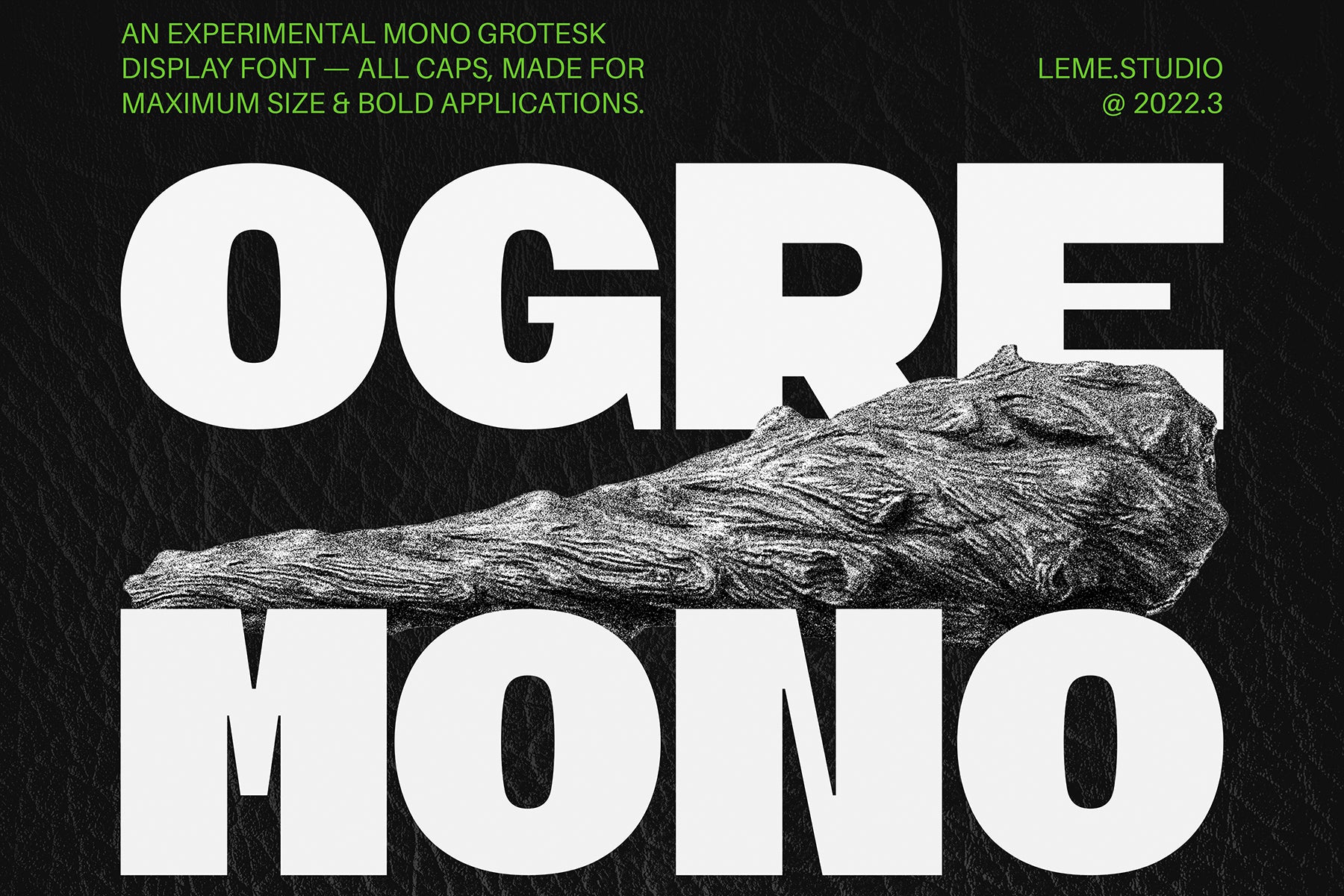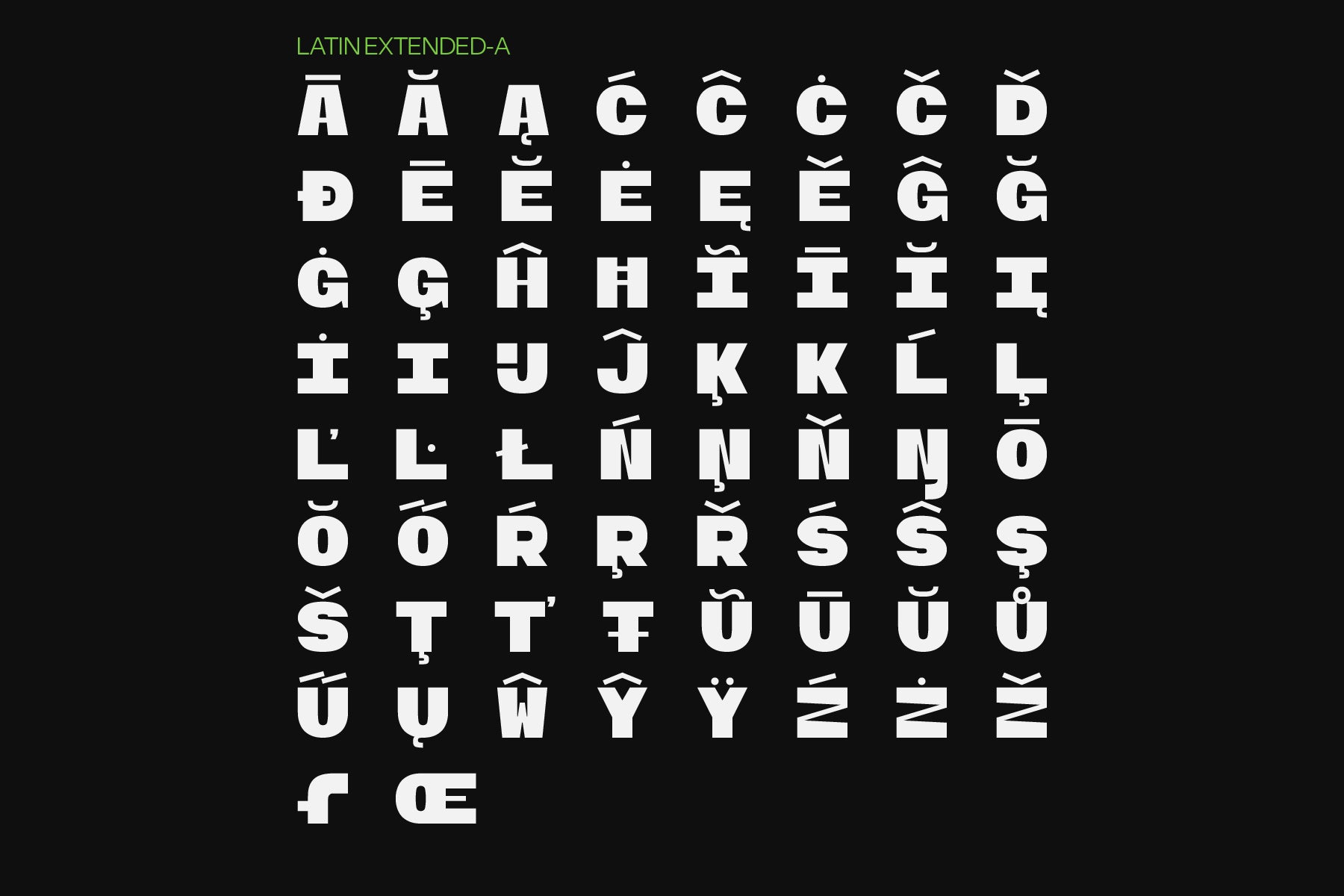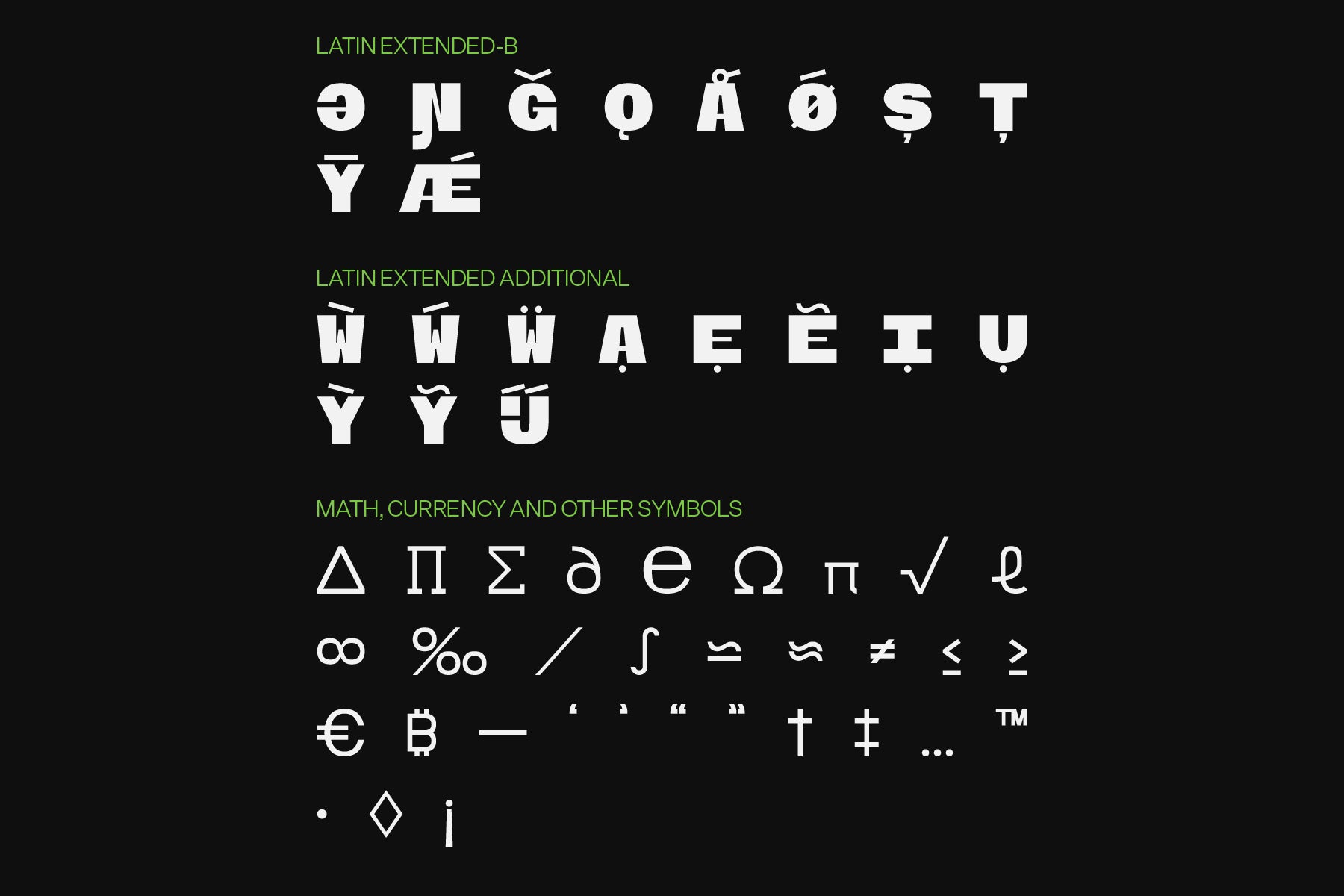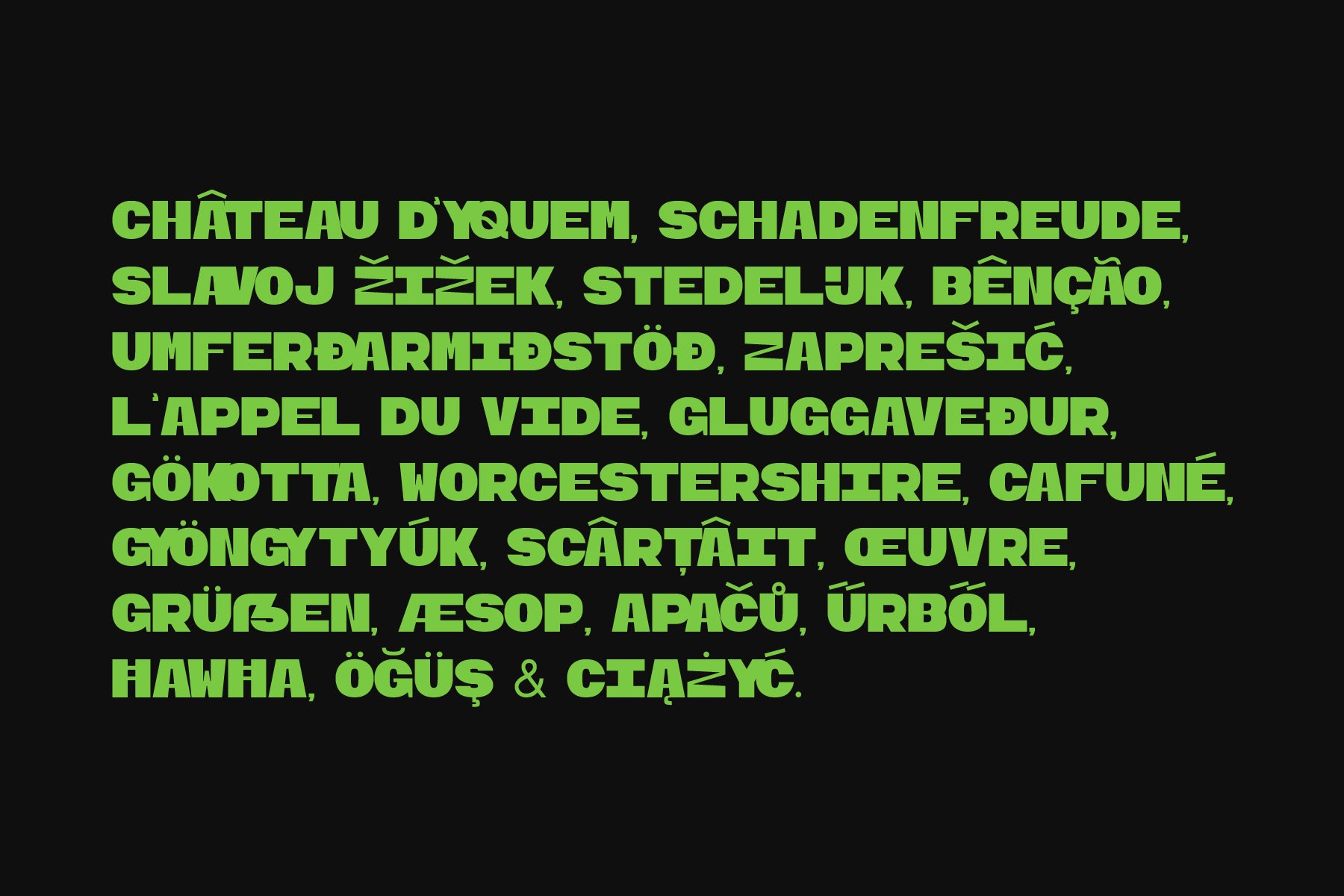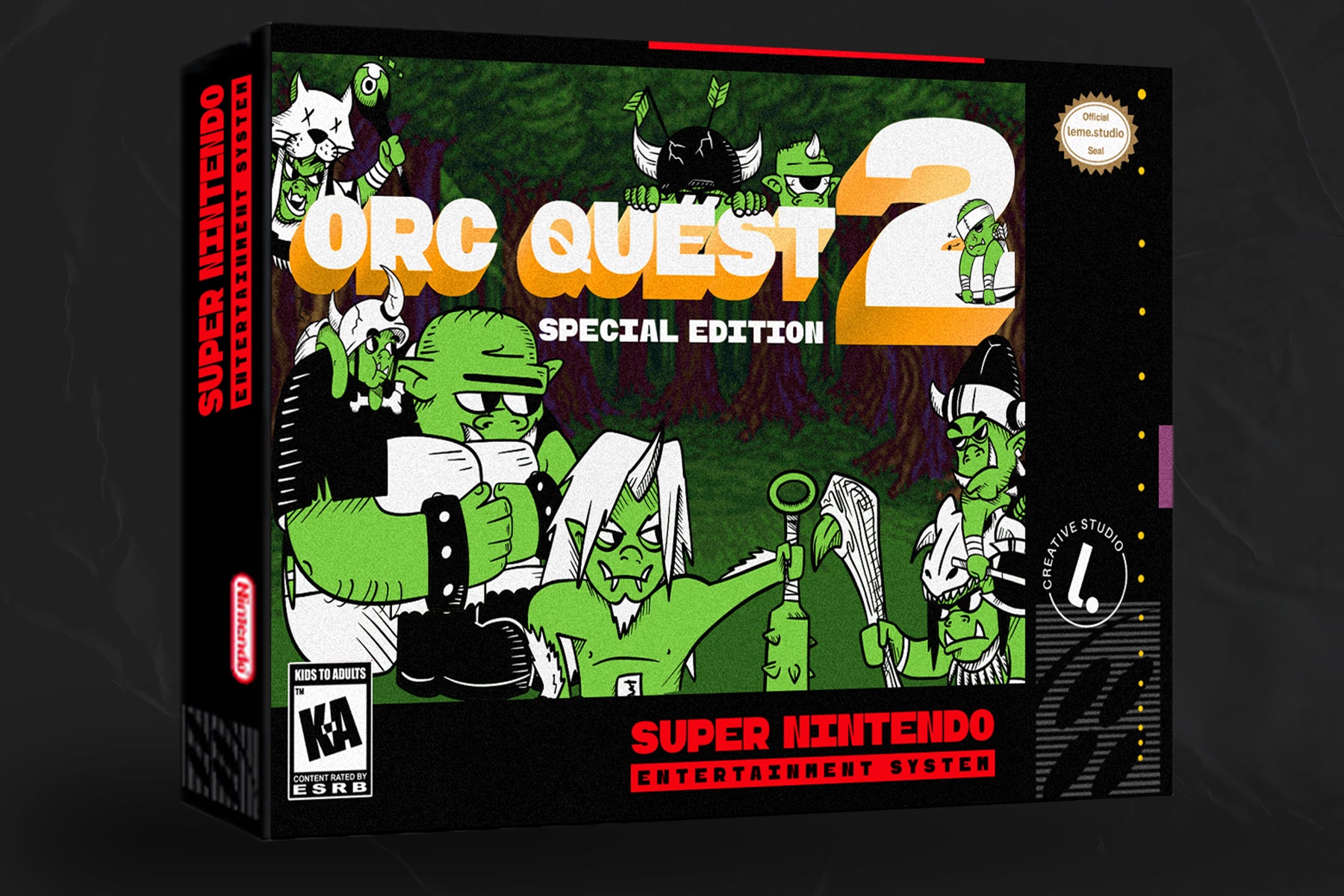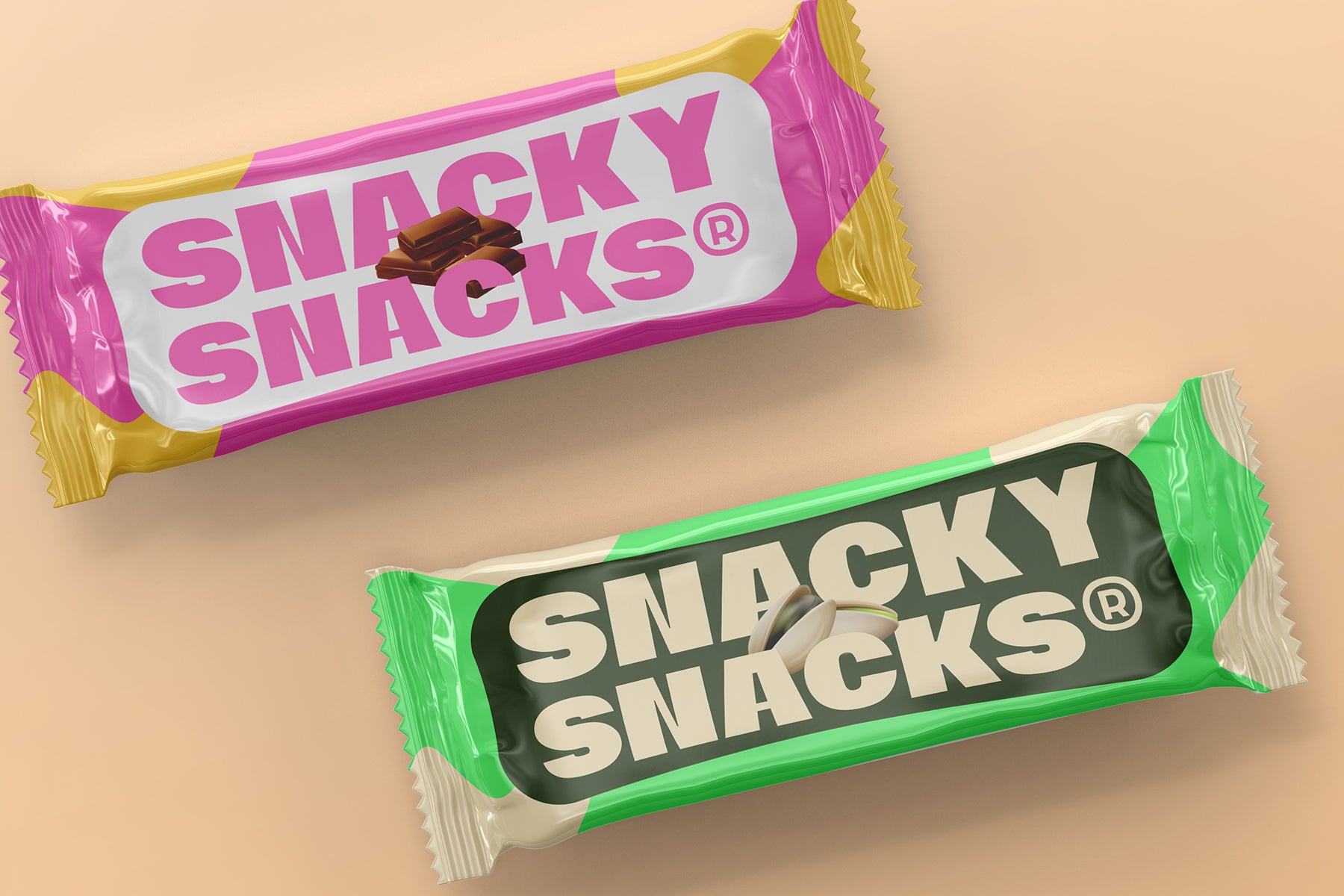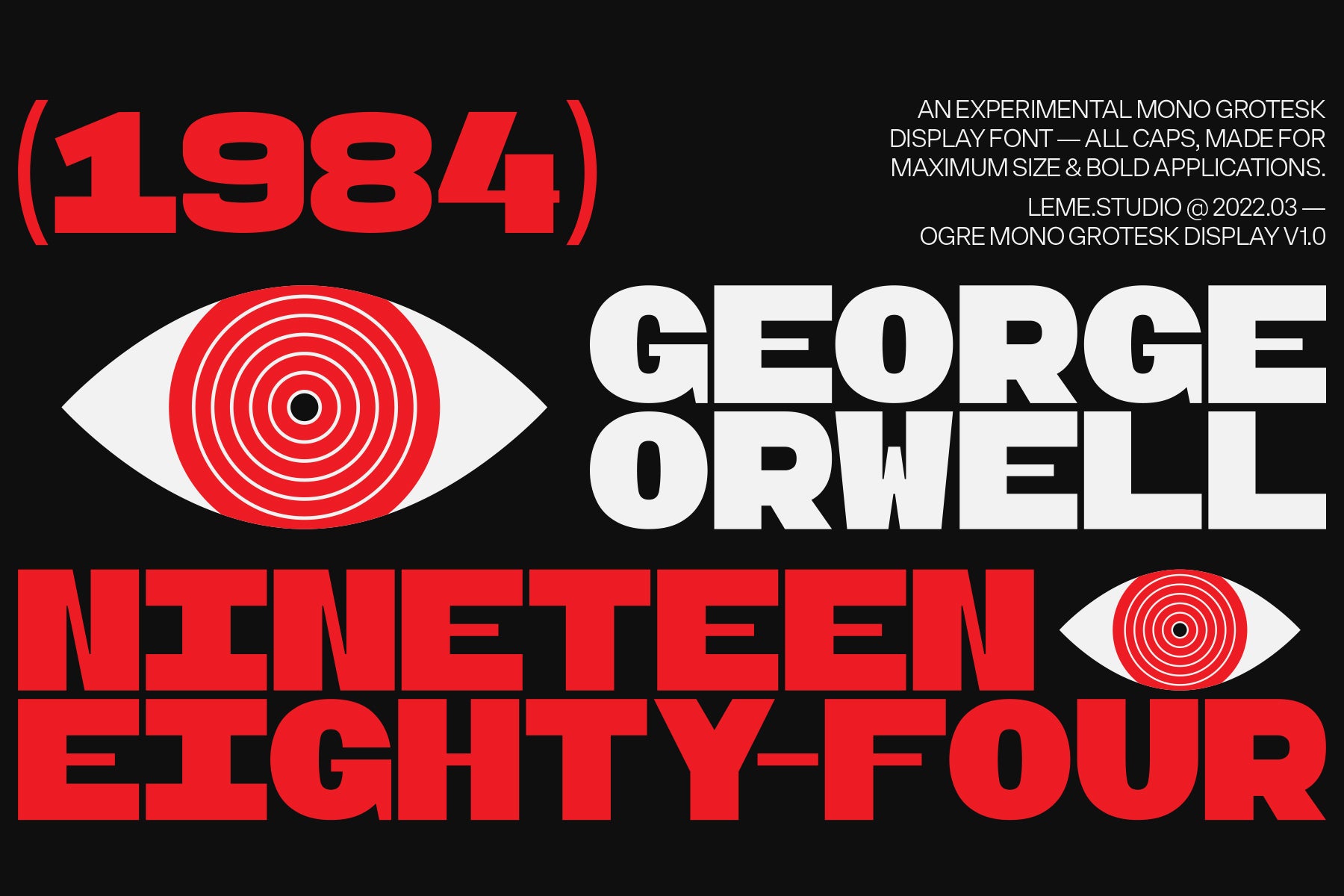
Ogre Mono Grotesk Display
leme studio
Ogre Mono Grotesk Display
Ogre Mono Grotesk Display created by leme studio
A blocky sans serif typeface for a fun, modern look. The main challenge of this internal project was to develop an impactful, wide and rough font. Besides its ‘monstrous’ structure, thinner details served to complete the composition. With a ‘brutalist’ aesthetics, the typography was then entitled Ogre Mono Grotesk Display.